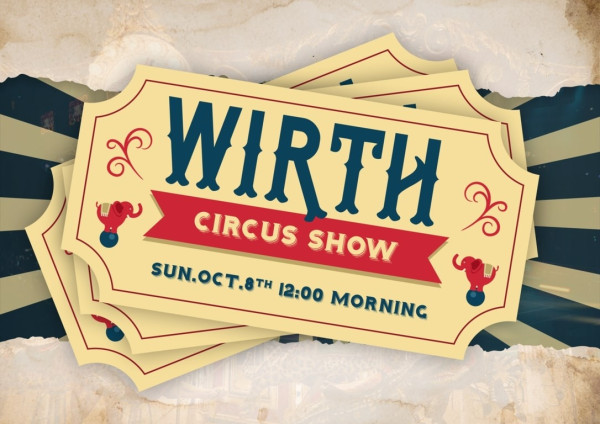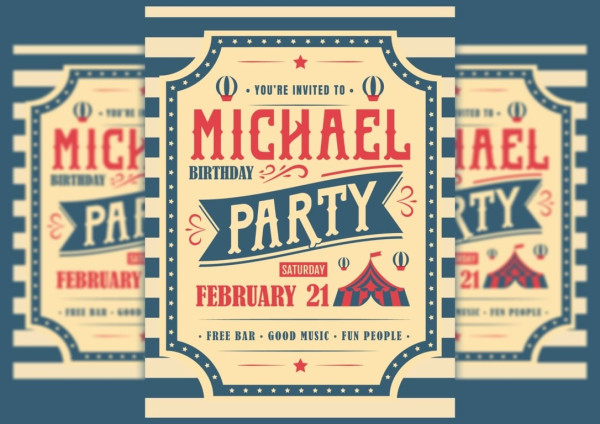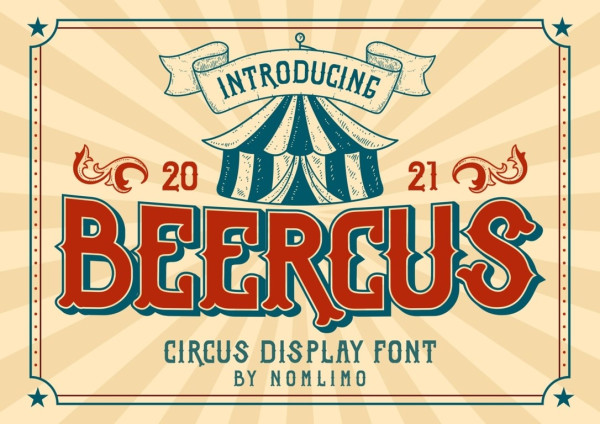
Beercus Display Font
Beercus Display Font, draws its inspiration from the nostalgic charm of vintage circus and festival signage. BeercusBoggle Royale is an ideal choice, specifically tailored for logos and various formal applications like invitations, labels, magazines, books, greeting or wedding cards, packaging, fashion, makeup, stationery, novels, labels, and any form of advertising. Indulge in the versatility of Beercus , crafted to evoke a sense of vintage flair reminiscent of circus and festival aesthetics.
Beercus Display font seamlessly integrates into a wide array of design projects, including logos, invitations, labels, magazines, books, greeting cards, wedding stationery, packaging, fashion-related materials, makeup products, novels, advertising purposes, and more.